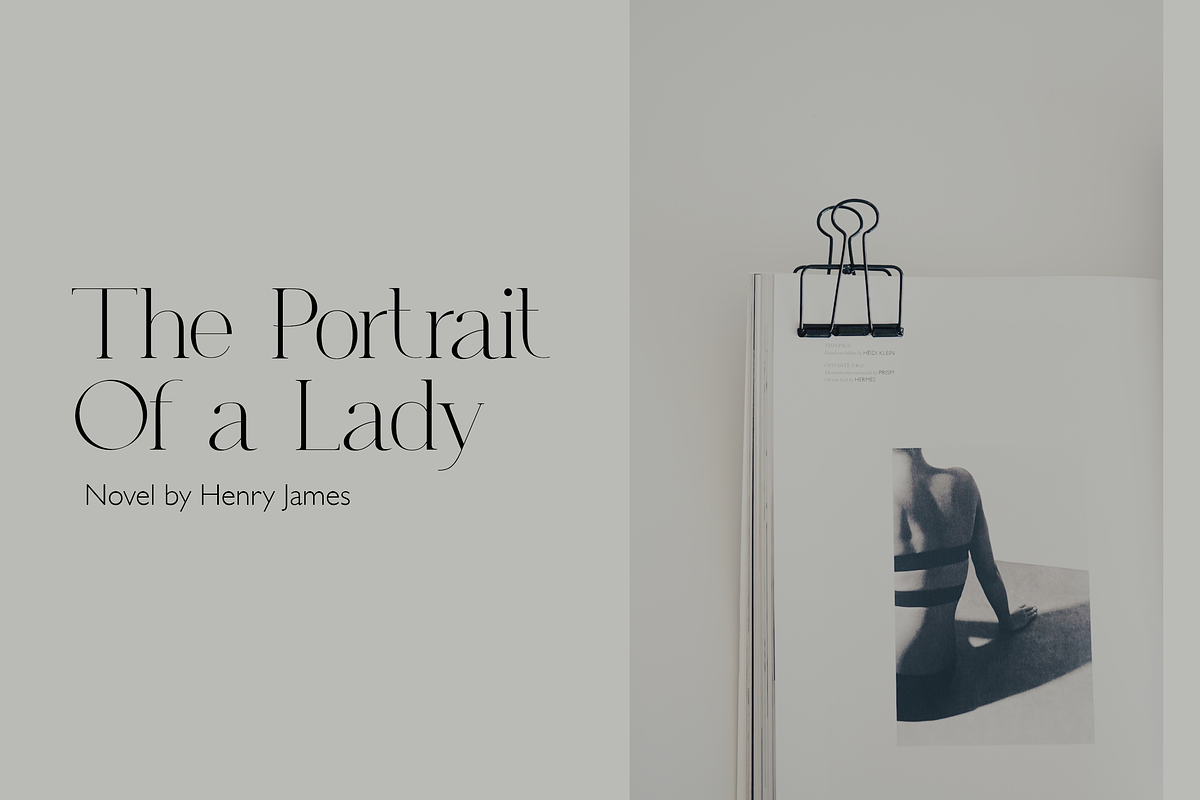
Afterglow Font
Afterglow is an elegant, fashion and serif font. It is suitable for any branding project like logo, t-shirt printing, esport, and many more. outstanding in a wide range of contexts.